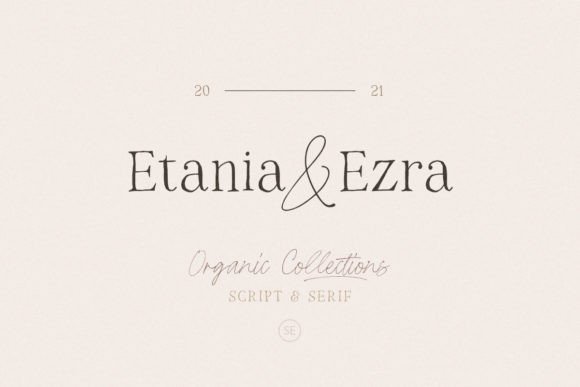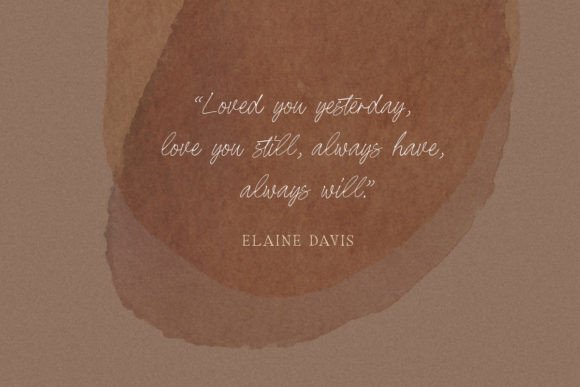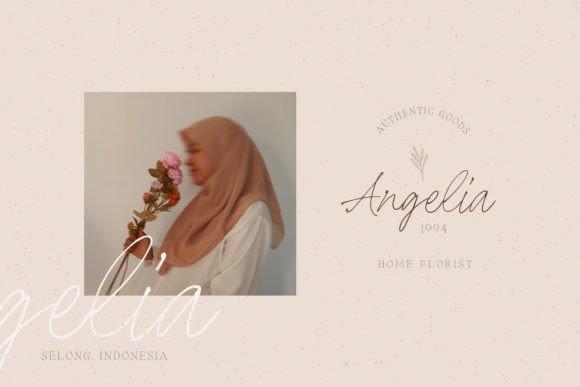
Etania & Ezra Font: Elegant Serif Script Duo for Wedding & Branding
About the Etania & Ezra Font
The Etania & Ezra Font offers a perfect balance of form and function for your design needs. Etania & Ezra is a fantastic serif and script duo font that exudes authenticity and charm. It looks minimalistic yet applicable to everything! Try it on wedding invitations, branding, logotypes, or even quotes. If you are looking for fonts with handmade and organic vibes, this font will fulfill your needs!
Etania & Ezra’s elegant yet slightly rustic feel makes it ideal for branding projects requiring a touch of handcrafted authenticity, particularly for businesses in the lifestyle, fashion, or food industries. It works exceptionally well in headlines, short-form text, and logos, adding a sophisticated yet approachable aesthetic. However, its delicate serifs and script style make it less suitable for extensive body copy or UI elements where high readability is paramount.
This font duo pairs well with clean sans-serif fonts like Montserrat or Open Sans for a balanced contrast, offering improved readability when used together. For a more playful feel, consider pairing Ezra with a rounded geometric sans-serif font such as Circular Std. In contrast, a modern serif like Lato can provide a more formal and refined pairing for Etania.
The overall personality of Etania & Ezra is sophisticated and approachable, conveying a sense of both timeless elegance and modern charm. It projects a brand image that is refined but not stuffy, approachable but not casual.
Etania & Ezra Font Usage Examples
Etania & Ezra Font Example